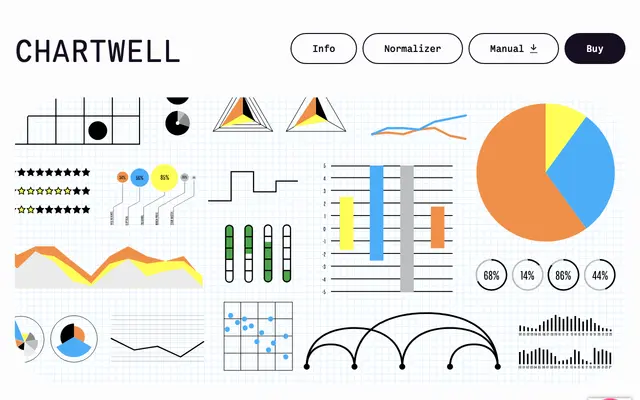
Chartwell
A typeface that converts typed numbers into editable charts using OpenType discretionary ligatures, supporting pie, bar, radar and scatter formats among others.
Designed by Travis Kochel and first released in 2011, Chartwell uses OpenType technology to turn numeric strings into rendered charts while keeping the underlying data as editable text. Thirteen chart variants cover pies, bars, lines, radar plots, scatter graphs and more, with web and Figma support added alongside the Adobe ecosystem. Originally signed with FontFont in 2012, it returned to its creators at Vectro in 2023 and picked up awards from Fast Company, Communication Arts and Typographica along the way.
Chartwell is a functional novelty typeface that uses OpenType discretionary ligatures to render data entered as text into chart forms such as pies, bars and radar plots. It defies standard classification but sits closest to display given its specialised, non-running-text application.